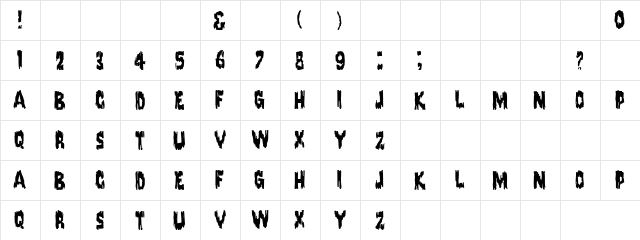
Rusted Type Regular
Design Context for Rusted Type Typeface
Rusted Type is a composed and adaptable typeface that performs quietly and consistently across a wide range of design contexts.